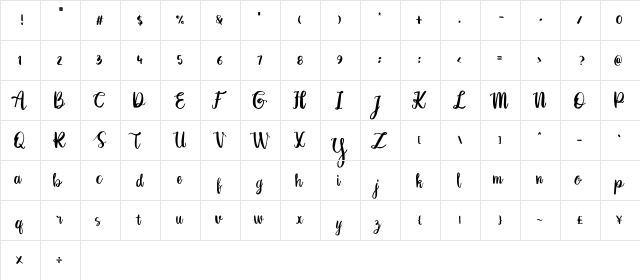
Qumalu Script
| Style | Script |
| Designer | Mega Ardelia |
Qumalu brings a calligraphic fluidity to the page — its connecting strokes and expressive curves give it an unmistakably human quality.